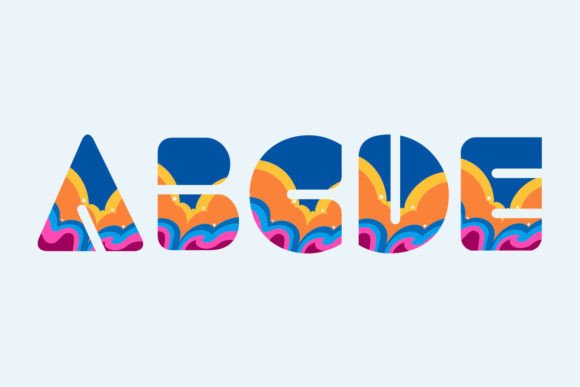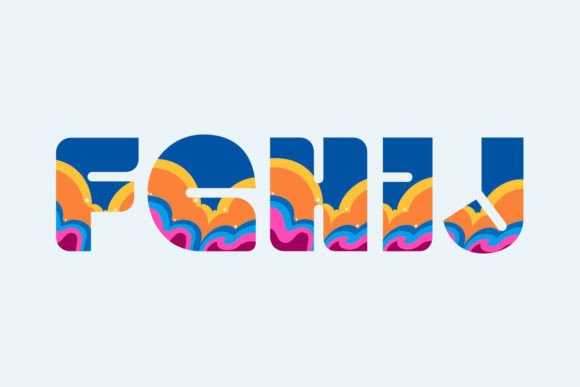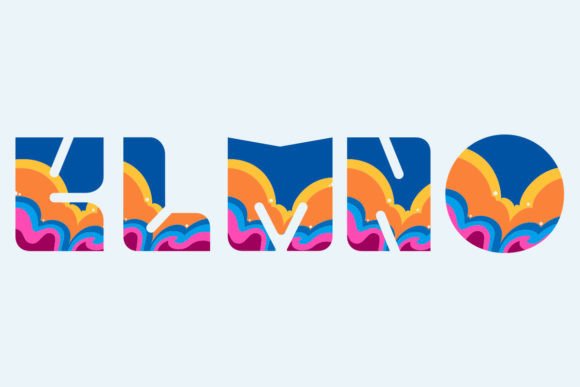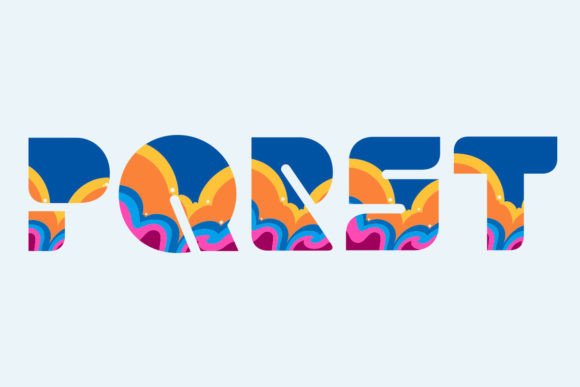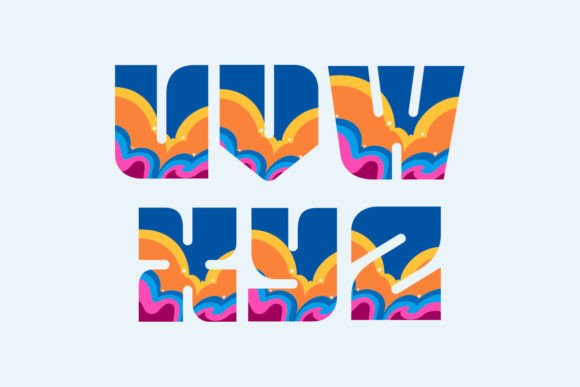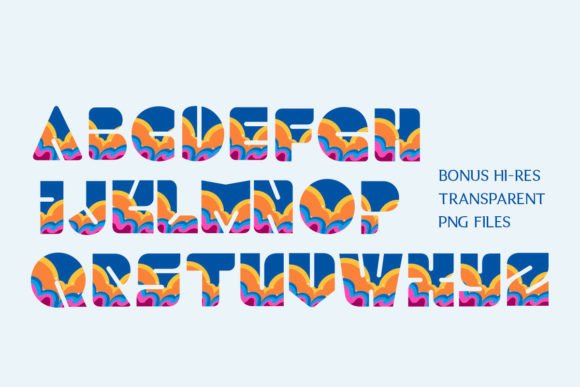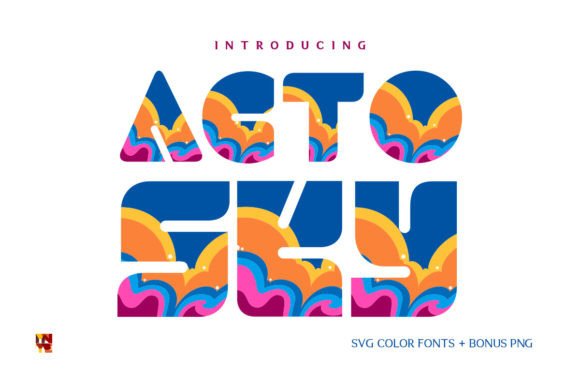
Introducing Acto Sky Font: Elevate Your Designs with a Vibrant and Flashy Touch
Are you tired of using the same old fonts in your designs? Do you want to add a pop of color and a dash of creativity to your work? Look no further than Acto Sky Font, a vibrant and flashy color font that features stunning sky pattern illustrations. This unique font is sure to bring a glowing touch to your design ideas and set them apart from the rest.
What is Acto Sky Font?
Acto Sky Font is a one-of-a-kind color font that combines beautiful sky pattern illustrations with a bold and eye-catching design. The font features a range of vibrant colors that evoke the feeling of a clear blue sky on a sunny day. With its unique and playful design, Acto Sky Font is perfect for designers and crafters who want to add a touch of whimsy and personality to their work.
Key Features of Acto Sky Font
- Vibrant and Flashy Design: Acto Sky Font features a bold and eye-catching design that is sure to grab attention.
- Sky Pattern Illustrations: The font features beautiful sky pattern illustrations that add a touch of whimsy and personality to your designs.
- Multi-Color Support: Acto Sky Font supports multiple colors, allowing you to create stunning multi-colored designs with ease.
- Easily Customizable: The font is easily customizable, allowing you to adjust the colors, size, and style to suit your design needs.
How to Use Acto Sky Font in Your Designs
Using Acto Sky Font in your designs is easy and straightforward. Here are a few tips to get you started:
- Pair it with a Bold Background: Pair Acto Sky Font with a bold and contrasting background to make your text stand out.
- Use it for Headings and Titles: Use Acto Sky Font for headings and titles to add a touch of personality and whimsy to your designs.
- Experiment with Colors: Experiment with different colors and combinations to create unique and eye-catching designs.
Benefits of Using Acto Sky Font
There are many benefits to using Acto Sky Font in your designs. Here are a few:
- Adds Personality to Your Designs: Acto Sky Font adds a touch of personality and whimsy to your designs, setting them apart from the rest.
- Increases Visual Appeal: The font’s vibrant and flashy design increases the visual appeal of your designs, making them more engaging and attention-grabbing.
- Easy to Use: Acto Sky Font is easy to use and customize, making it perfect for designers and crafters of all skill levels.
Who Can Benefit from Using Acto Sky Font?
Acto Sky Font is perfect for a range of designers and crafters, including:
- Graphic Designers: Graphic designers can use Acto Sky Font to add a touch of personality and whimsy to their designs.
- Digital Artists: Digital artists can use the font to create stunning and eye-catching artwork.
- Crafters: Crafters can use Acto Sky Font to add a personal touch to their handmade projects and creations.
In conclusion, Acto Sky Font is a vibrant and flashy color font that is sure to bring a glowing touch to your design ideas. With its unique and playful design, multi-color support, and ease of use, Acto Sky Font is perfect for designers and crafters who want to add a touch of personality and whimsy to their work. So why wait? Download Acto Sky Font today and start elevating your designs to new heights!